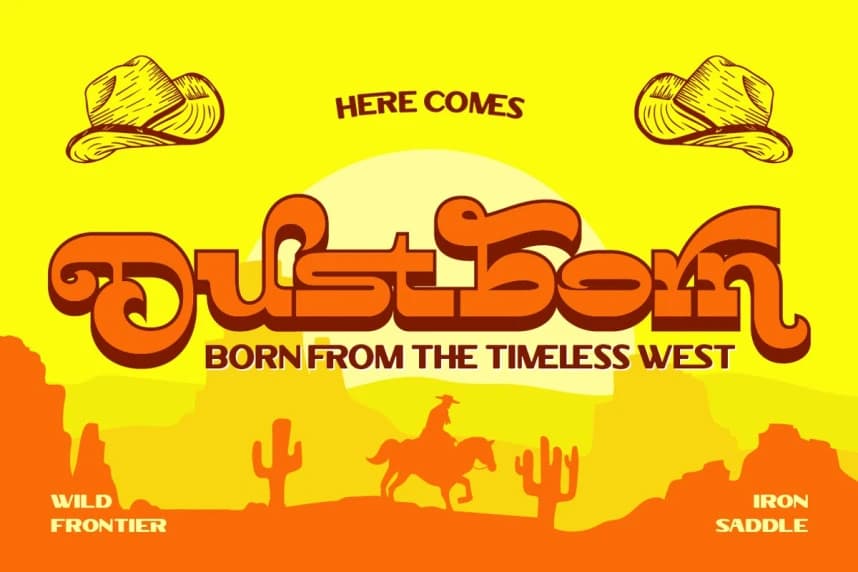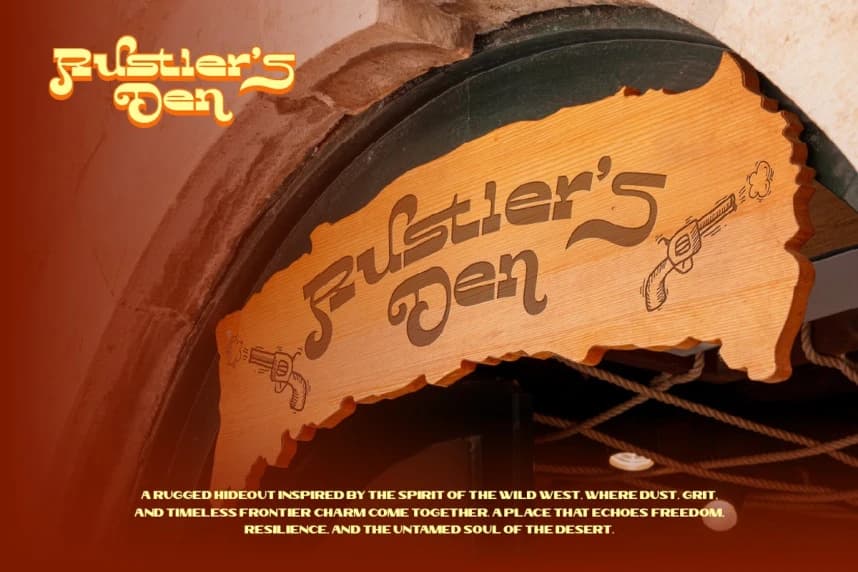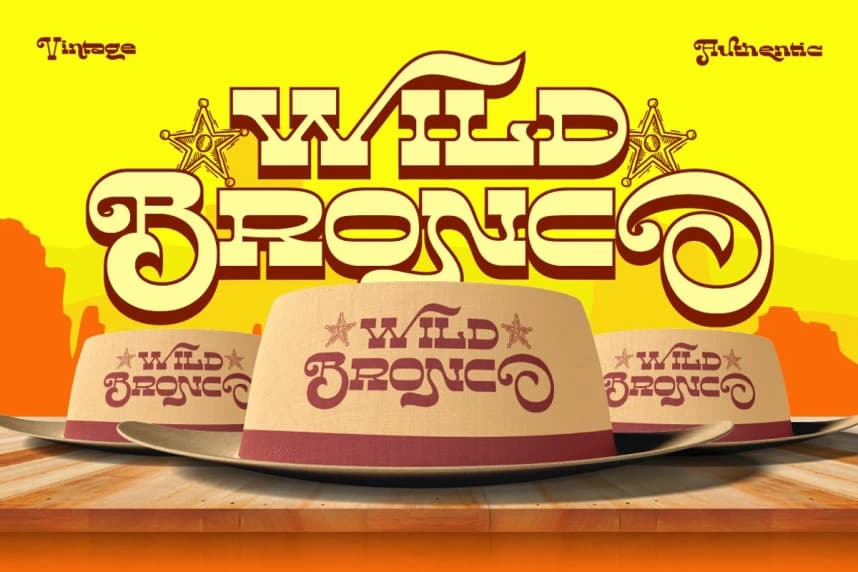
Marona Font
Marona Font is a bold western-inspired typeface with a modern playful twist. Its chunky curves and unique letterforms give off a fun yet strong vibe, making it perfect for logos, posters, headlines, or anything that needs to stand out.